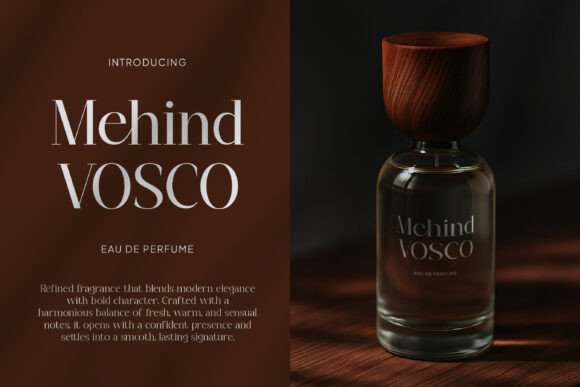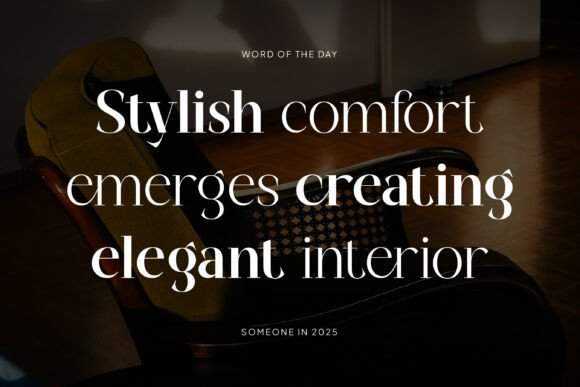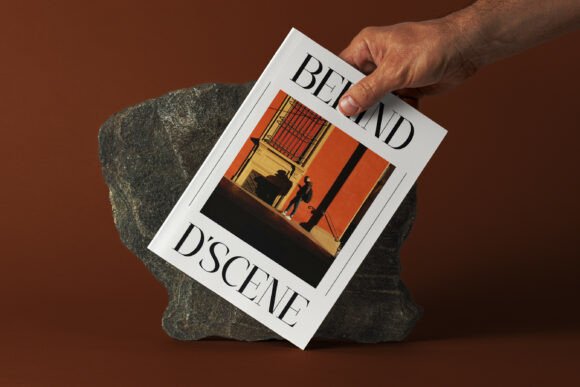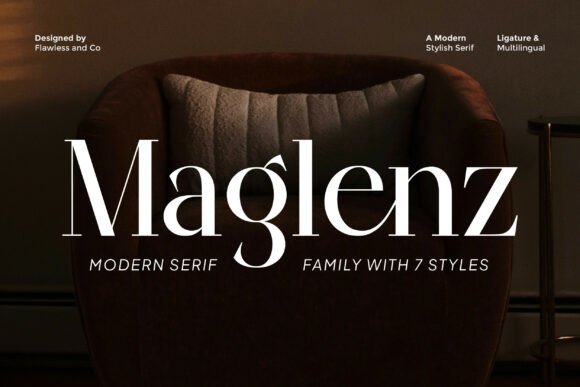
Introduction to Maglenz Font
Maglenz is a modern serif family font designed to bring elegance, clarity, and versatility into one complete type system.
With its refined shapes, stylish contrast, and balanced proportions, Maglenz delivers a contemporary serif look that feels premium, clean, and highly adaptable Featuring multiple styles, this font family allows designers to create consistent and expressive visual hierarchies across various design needs.
Key Features of Maglenz Font